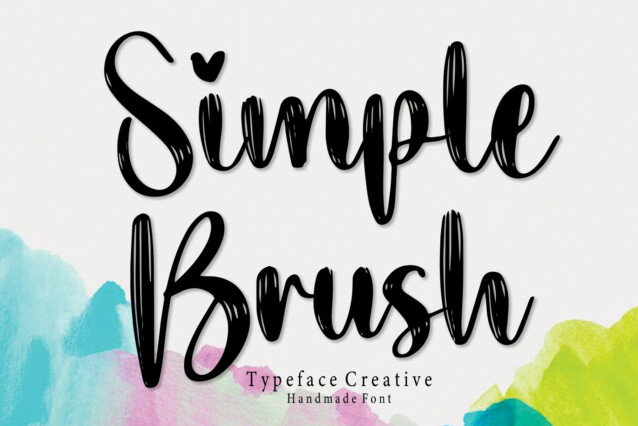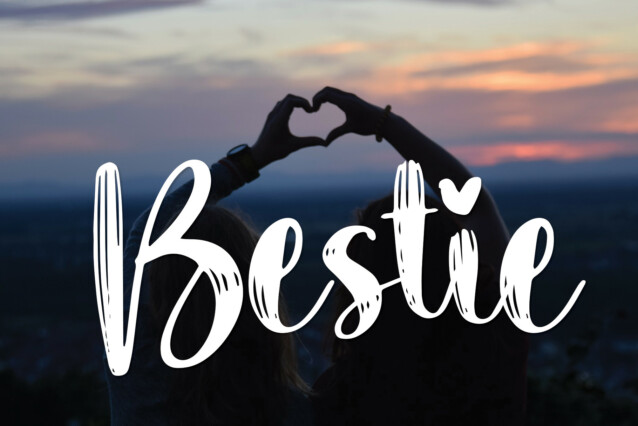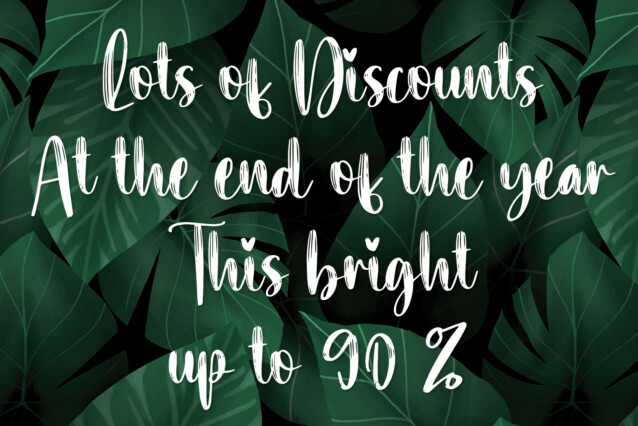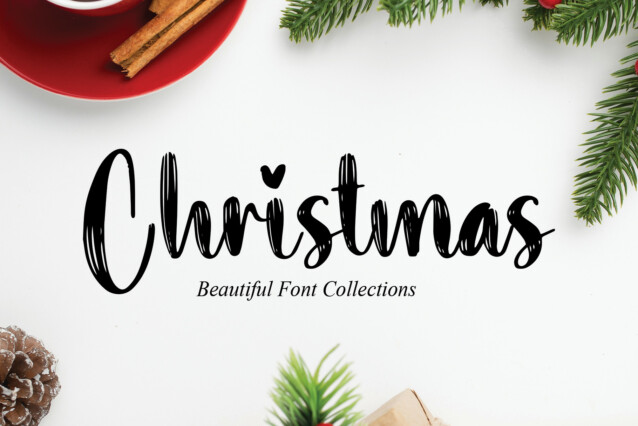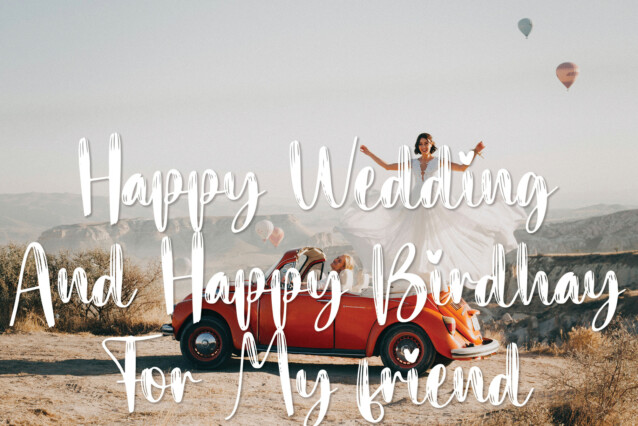
Simple Brush Font
Simple Brush Font is a beautiful handmade typeface. This creative handwriting font is suitable for wall displays, wedding invitations, social media post logos, advertisements, product packaging, product designs, labels, photography, watermarks, invitations, stationery, and any project that requires taste handwriting.